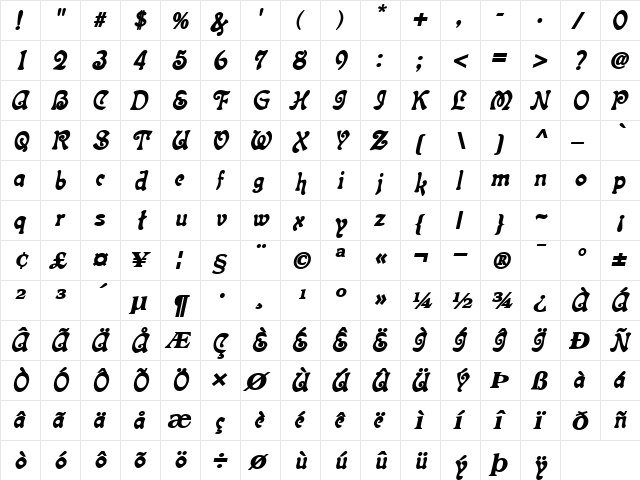
SeaBugsSSK BoldItalic
Design Context for SeaBugsSSK Typeface
SeaBugsSSK is a composed and adaptable typeface that performs quietly and consistently across a wide range of design contexts. The slanted form adds forward momentum and visual energy. The heavy weight commands attention and anchors typographic hierarchies.
Pro Tip: Try SeaBugsSSK for annotation and caption copy alongside an upright companion — the contrast in angle creates a dynamic but ordered typographic system.